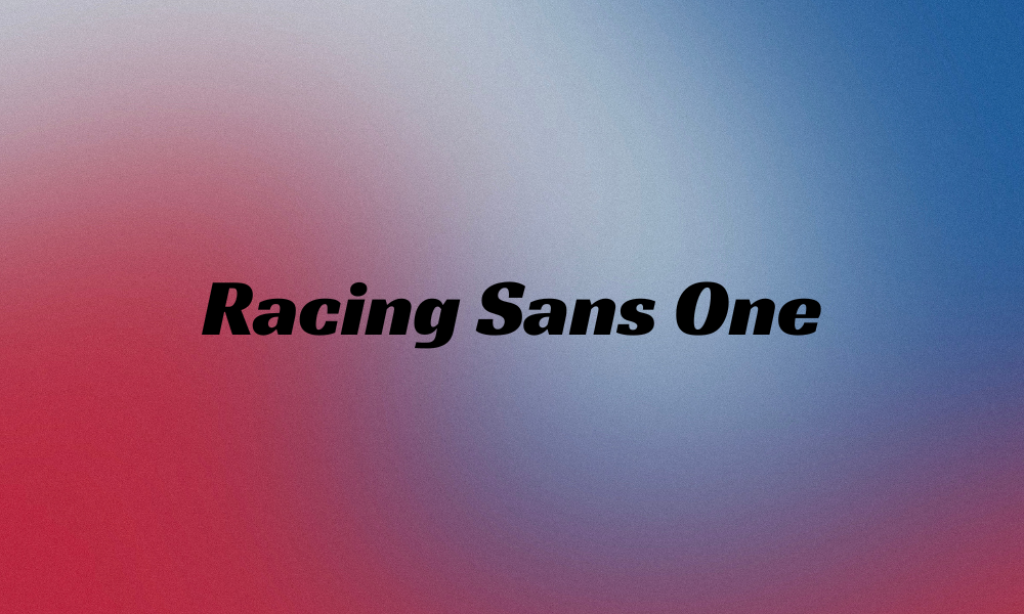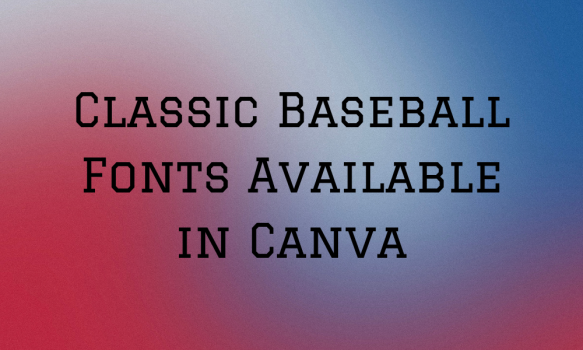
Baseball is a cultural phenomenon that goes beyond being just a sport. It has a rich visual history, and the fonts associated with it play a significant role in capturing its essence. The right font can evoke the nostalgia of early baseball days, the excitement of a live game, or the dynamic energy of modern play. So, explore the 20 classic baseball fonts available in Canva and embody the spirit of this beloved sport in your next project. These fonts offer a variety of styles suitable for baseball-themed designs, ranging from classic and retro to modern and playful, allowing for a diverse selection to choose from when creating baseball-related projects in Canva.
1. Archicoco
Why it is a classic Baseball font: Archicoco is characterized by its playful and bold style, which is reminiscent of the fun and energetic atmosphere of a baseball game. Its rounded edges and uniform thickness make it approachable and easy to read, suitable for team logos and promotional materials.
2. Bright Retro
Why it is a classic Baseball font: As the name suggests, this font carries a retro vibe, echoing the classic era of baseball. Its bold, condensed letters with sharp edges evoke the traditional typography used in vintage baseball signage and memorabilia. This font harks back to the classic days of baseball, making it perfect for designs that aim to evoke nostalgia.
3. Bungee
Why it is a classic Baseball font: Bungee’s vertical orientation and bold, blocky design embody the dynamic and powerful aspects of baseball. Its impactful presence makes it suitable for headlines and any design where a strong statement is needed.
4. Gliker
Why it is a classic Baseball font: Gliker has a quirky, irregular design that stands out, much like the unpredictable nature of a baseball game. Its unconventional look can bring a unique, modern twist to traditional baseball aesthetics. It’s suitable for projects that aim to stand out and bring a contemporary edge to the classic baseball aesthetic.
5. Graduate
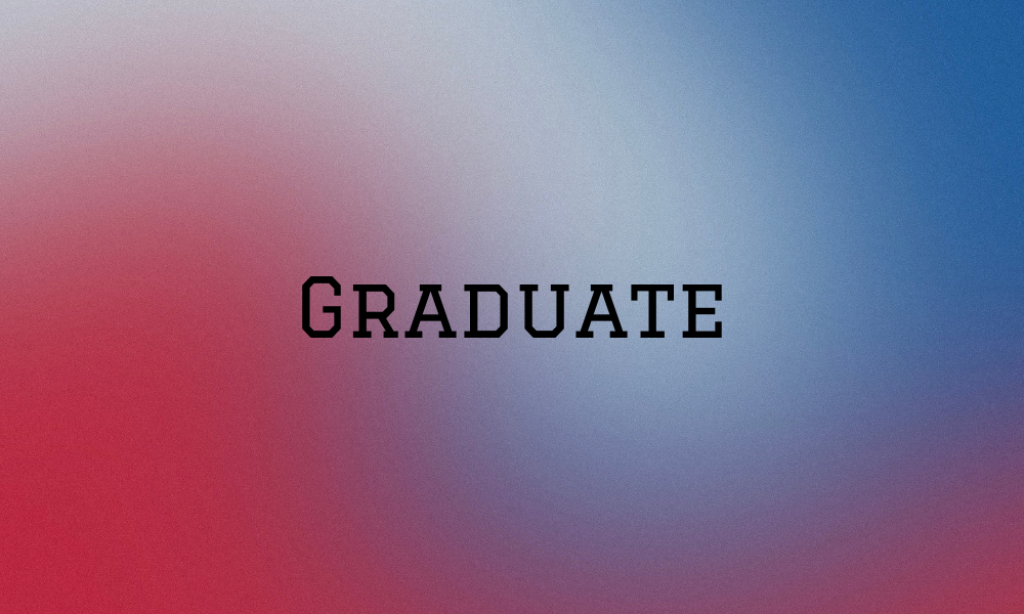
Why it is a classic Baseball font: With its collegiate lettering style, Graduate evokes the academic and athletic spirit of American baseball. Its bold, block letters are reminiscent of varsity jackets and team emblems, making it a classic choice for sports design. Its bold, blocky style conveys strength and tradition, aligning well with the historical and academic ties of baseball.
6. Harlow Solid
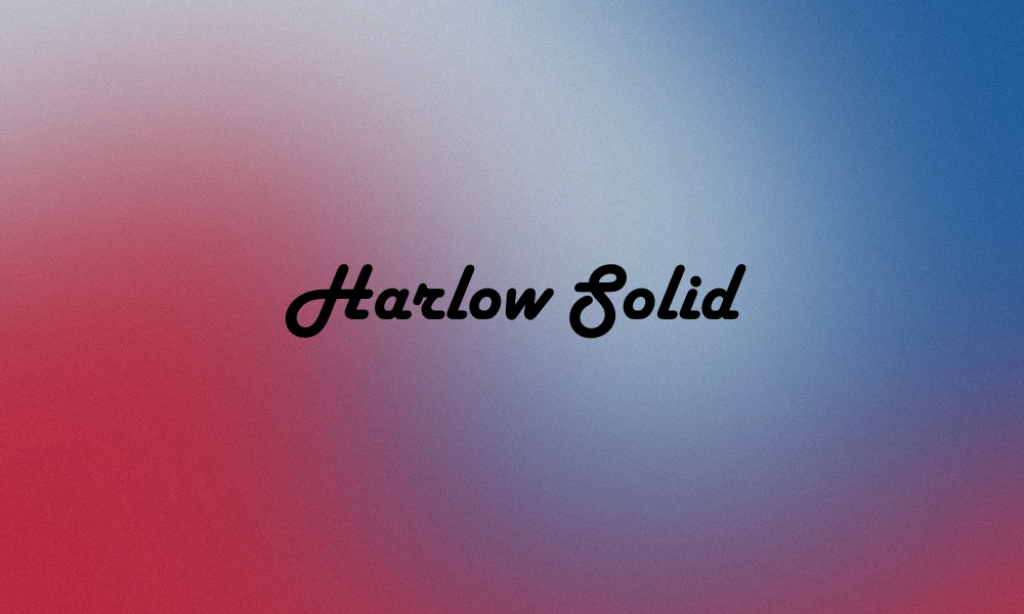
Why it is a classic Baseball font: Harlow Solid has a smooth, flowing style with a vintage feel, suitable for baseball logos and graphics that aim for a nostalgic look. Its curvy, sans-serif design is elegant yet playful, fitting the historical charm of the sport. Its solid, retro appeal makes it suitable for projects that aim for a nostalgic feel.
7. Lastica
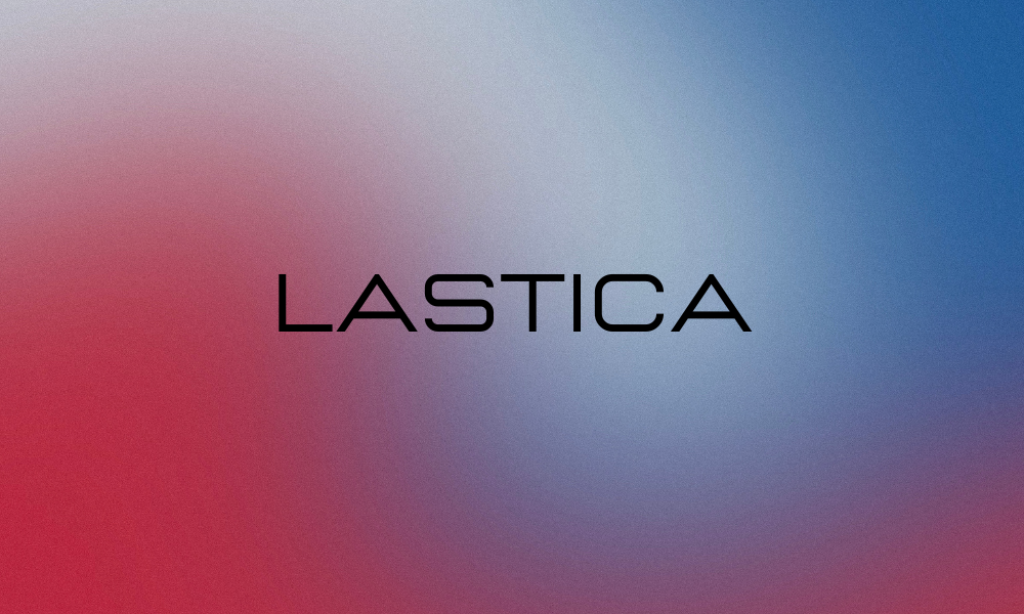
Why it is a classic Baseball font: Lastica’s modern and sleek design brings a contemporary edge to baseball typography. Its clean lines and round shapes offer a fresh look while maintaining the sporty and energetic feel essential for baseball-themed designs.
8. Magnolia Script
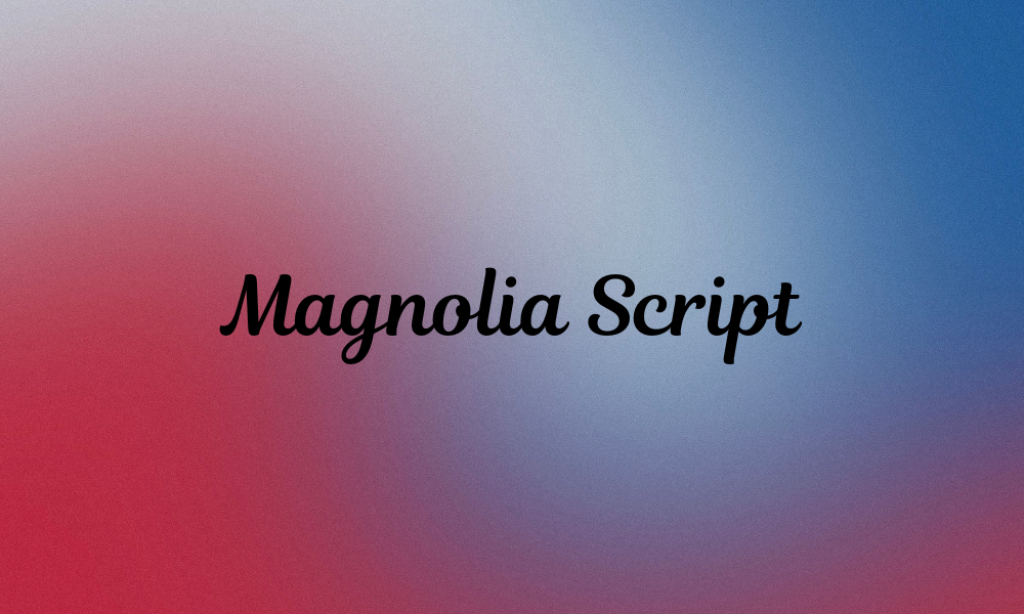
Why it is a classic Baseball font: A beautiful script font with elegant curves and fluid strokes, Magnolia Script resembles the hand-painted signs and team logos from the early days of baseball, offering a touch of class and tradition. This script font adds a personal, human touch to designs, evoking the heritage of the sport.
9. Magz
Why it is a classic Baseball font: Magz is straightforward and bold, with a clarity that makes it perfect for jersey numbers and player names. Its simplicity and clarity make it ideal for displaying player names and numbers on jerseys, capturing the functional aspect of baseball uniforms.
10. Maiden Orange
Why it is a classic Baseball font: This font is bright and friendly, with a retro touch that harkens back to the golden age of baseball. Maiden Orange’s rounded edges and bold weight make it ideal for creating approachable, fan-friendly designs.
11. Mervale Script
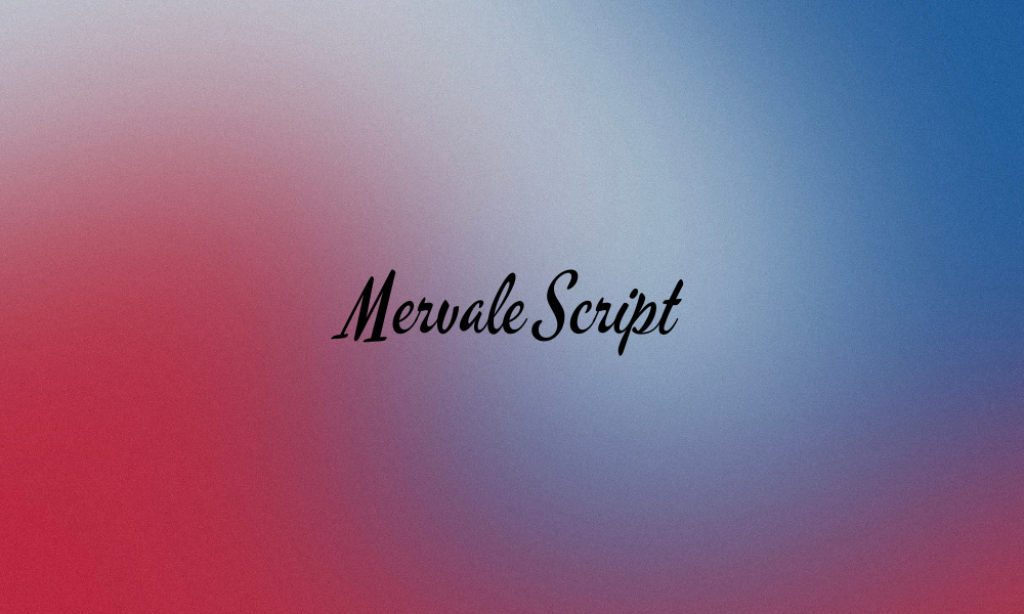
Why it is a classic Baseball font: Mervale Script has a brush script style that mimics the classic cursive of old-school baseball logos. Its informal yet elegant flow is ideal for conveying a sense of heritage and timelessness. Its fluidity and grace make it a standout choice for a vintage look.
12. Modak
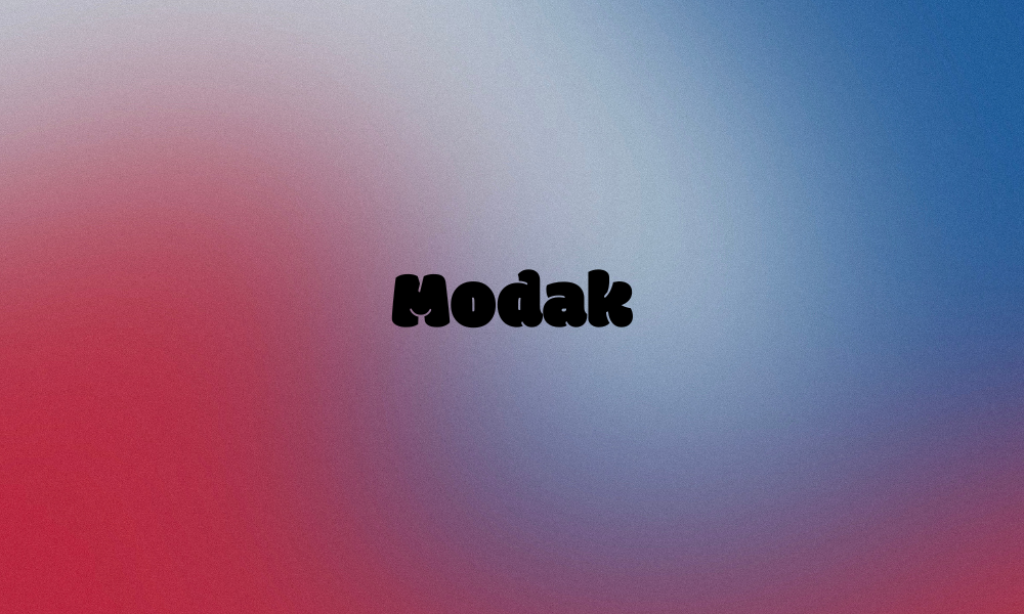
Why it is a classic Baseball font: With its chunky, rounded form, Modak brings a playful and energetic feel to baseball design. Its exaggerated shapes can convey the fun and excitement of the game, making it suitable for children’s sports programs or casual fan apparel.
13. Mokoto Glitch 2
Why it is a classic Baseball font: This font, with its glitchy, digital look, offers a modern and edgy take on baseball typography. It’s perfect for teams or brands presenting a contemporary, tech-savvy image.
14. Quad
Why it is a classic Baseball font: Quad’s geometric, blocky appearance makes it a solid choice for representing the strength and stability of a baseball team. Its square, compact letters are great for making a strong, lasting impression.
19. Sports World
Why it is a classic Baseball font: As the name implies, this font is designed for the sports industry, with letters that mimic the swooshes and curves of athletic movement, perfect for capturing the dynamic action of baseball.
20. True Typewriter
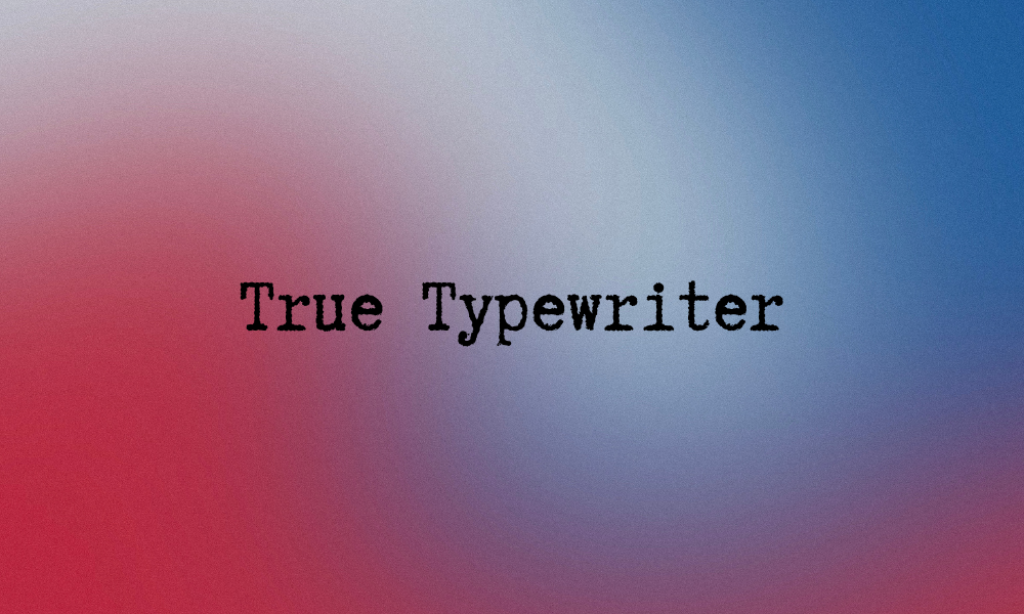
Why it is a classic Baseball font: This font has a vintage, mechanical feel, reminiscent of the old press boxes and game reports. True Typewriter can add a historical depth to baseball-themed designs, evoking the sport’s rich past.